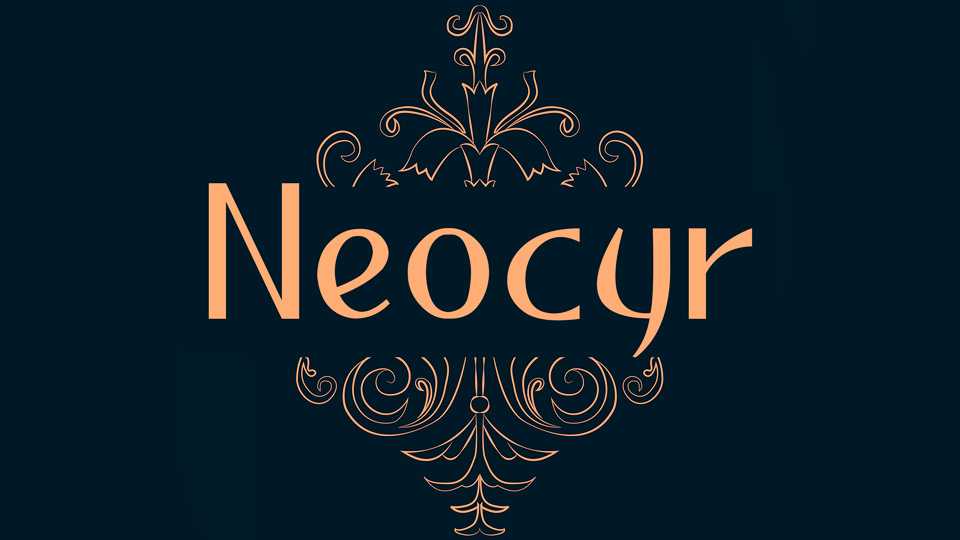
Download Neocyr font, a decorative old style typeface. Neocyr font is suitable for an authentic design projects, logos, branding, prints and more.
Designer: Viktar Palstsiuk